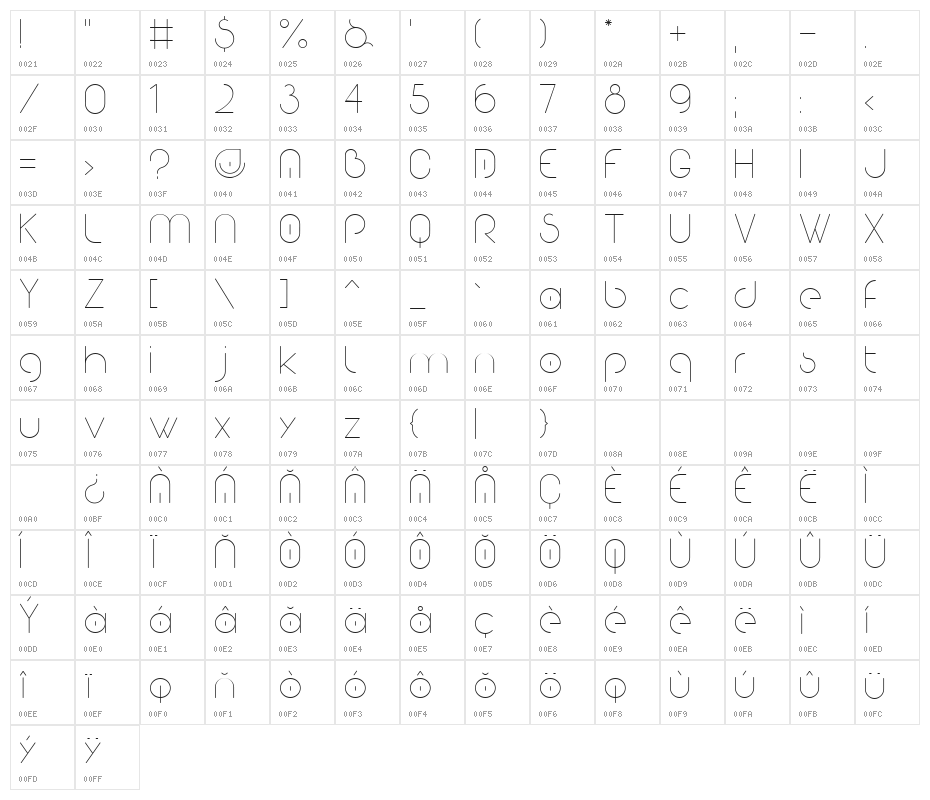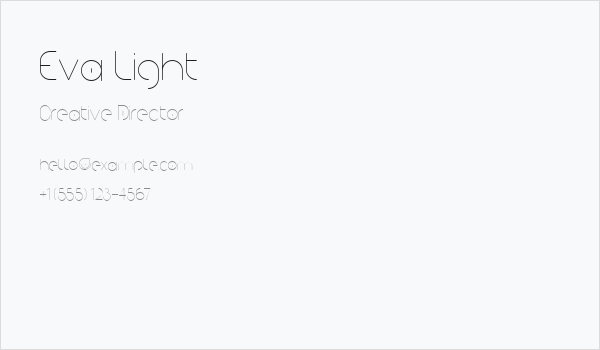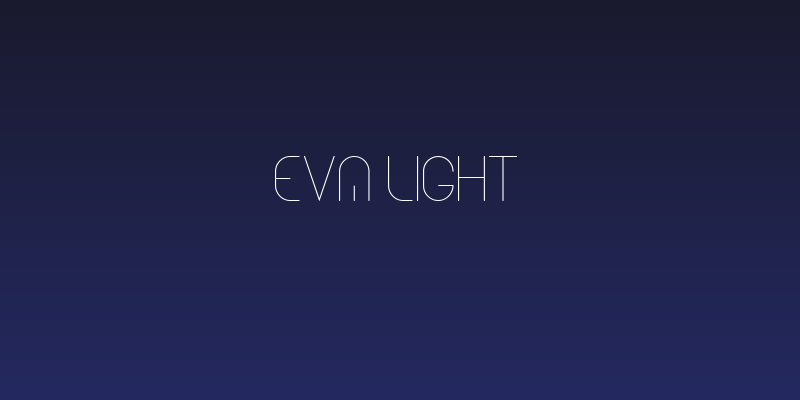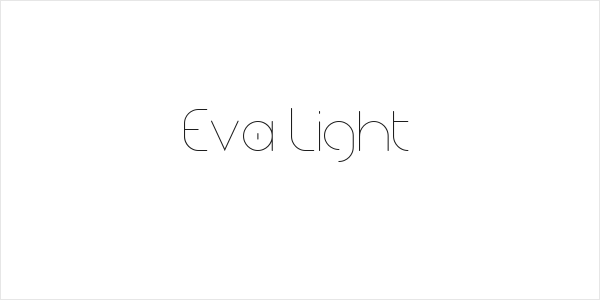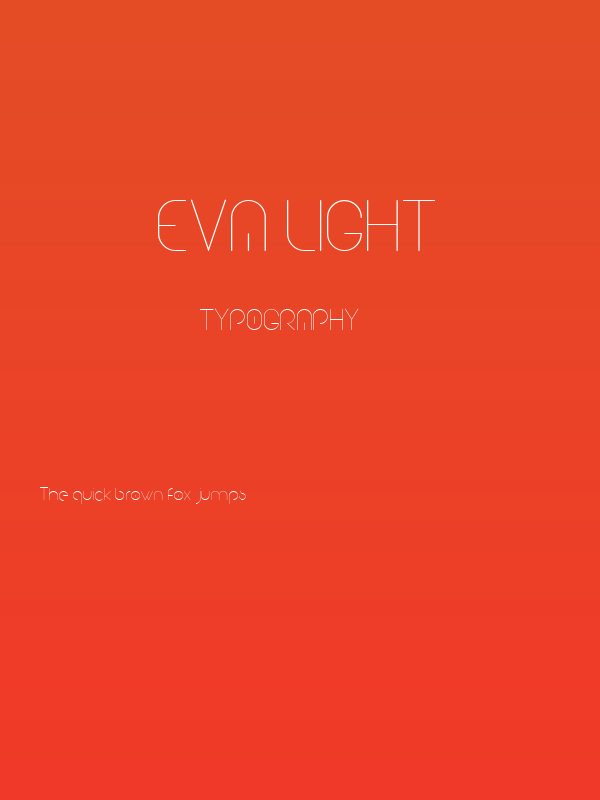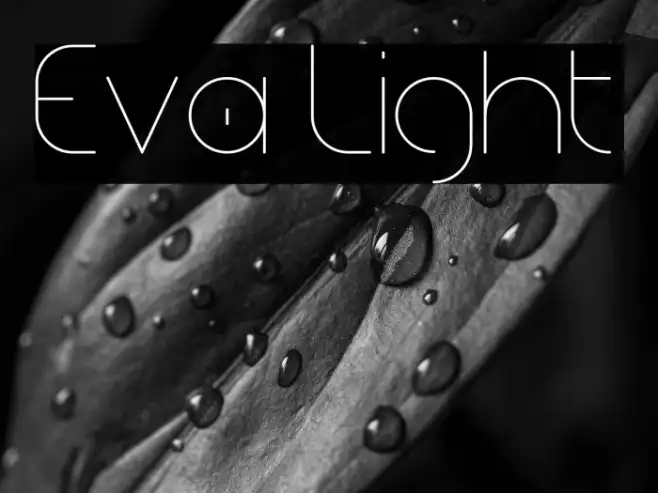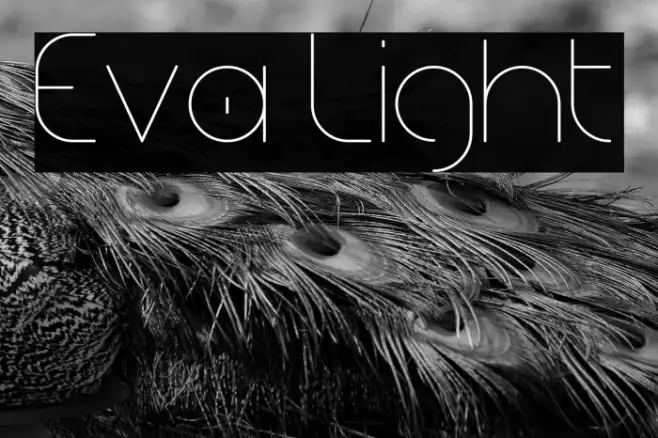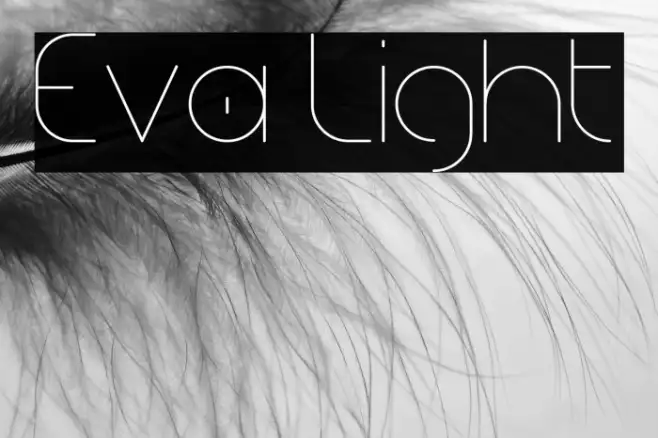
Eva Light Font
Eva Light Description
This font features a sleek and minimalistic design, characterized by its thin, uniform lines and geometric shapes. The letters are constructed with a modern aesthetic, emphasizing simplicity and clarity. The uppercase and lowercase characters maintain a consistent style, with rounded edges and a clean finish. The numerals are equally streamlined, offering a cohesive look across all characters. Special characters are designed with the same attention to detail, ensuring they blend seamlessly with the rest of the font. This font's light weight and open structure make it ideal for contemporary design projects.
| Use Case | Headlines, Logos, Digital Interfaces |
| Proposed Projects | Ideal for modern branding, minimalist posters, digital interfaces, and contemporary editorial design. |